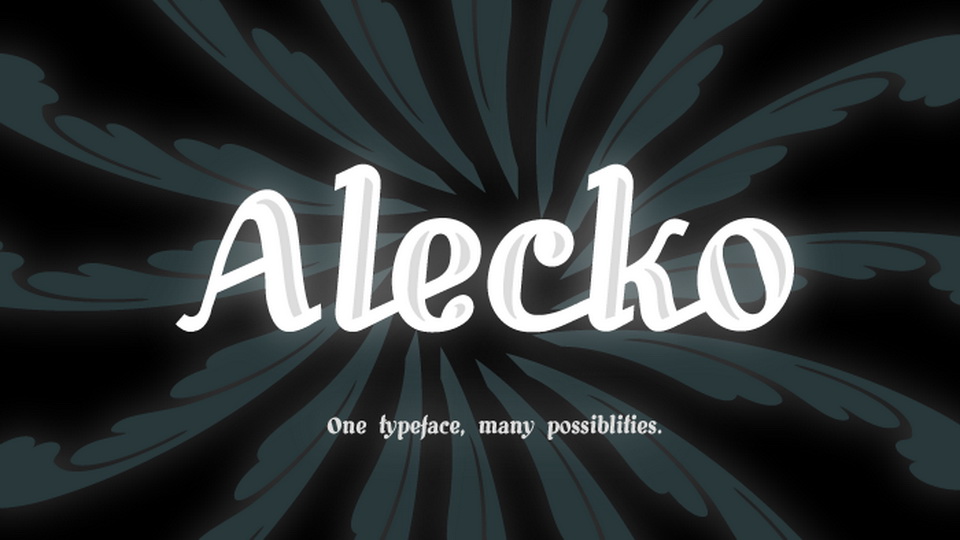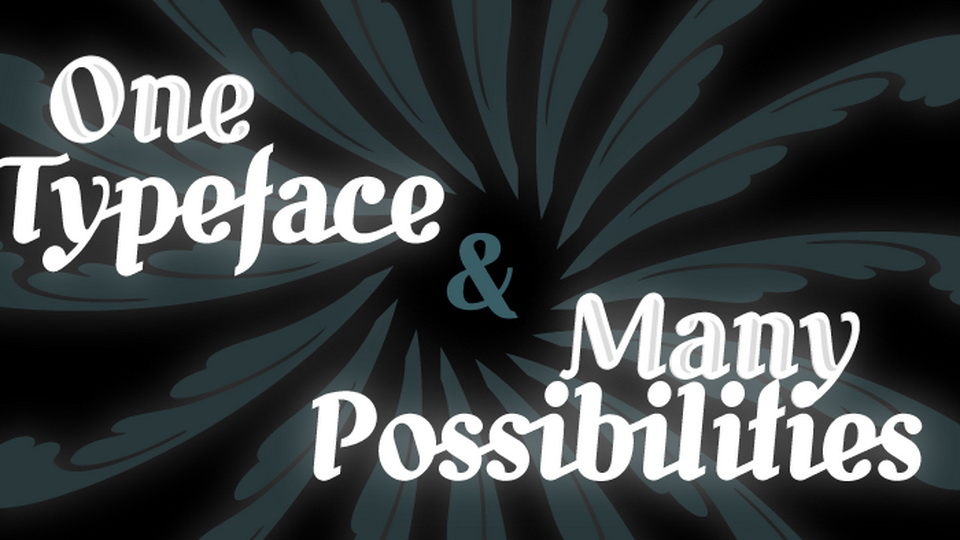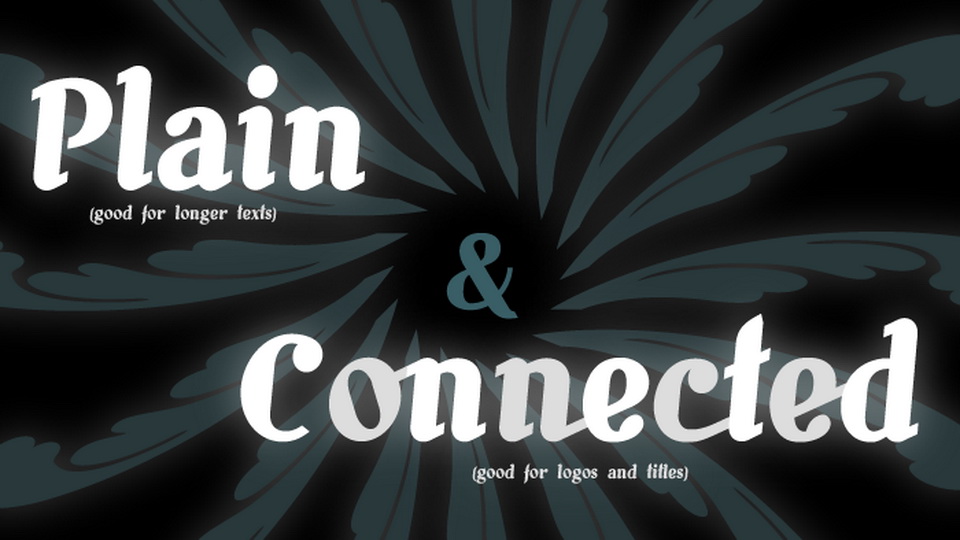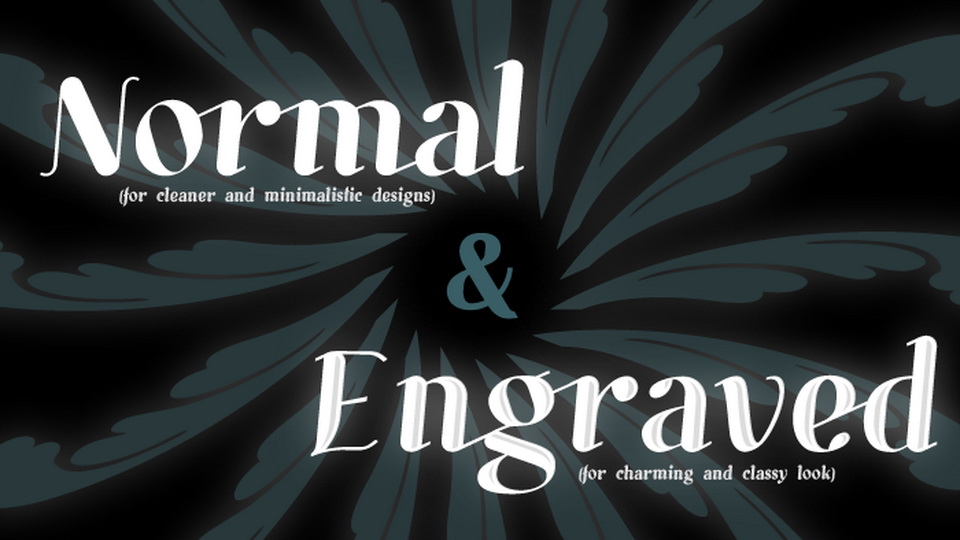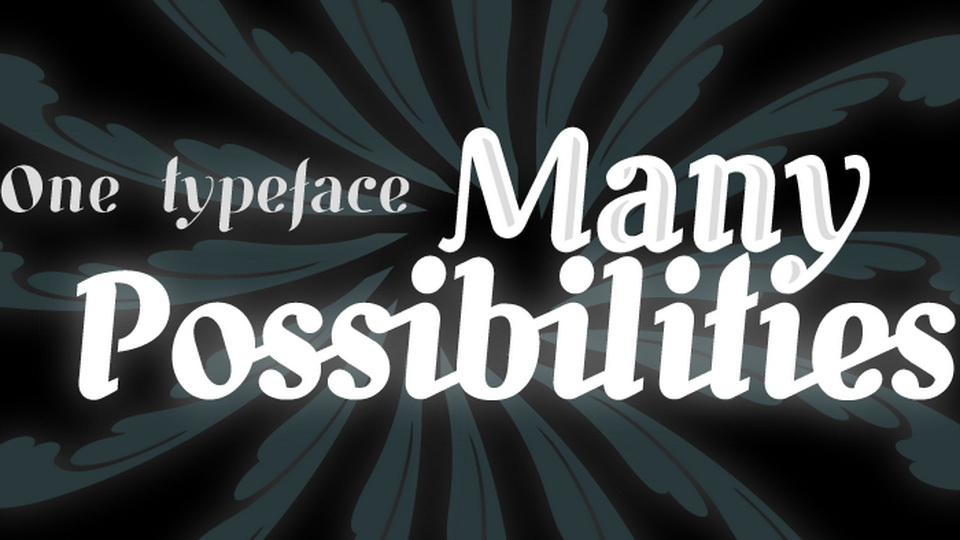
Alecko is a distinctive didone-style typeface, which is strongly influenced by calligraphy, but is at the same time drawn with mathematical precision. Its advantages are summarized in its slogan: “One typeface, many possibilities”. Once you decide to use it, you can alter its look in a variety of ways: Should the contrast between the horizontal and vertical strokes of the glyphs be high or low? Is it appropriate to apply engraving to the letters (and what color?). Should the glyphs be connected to one another?
Alecko is equipped with a lot of alternative characters, which are automatically inserted as you type, in order to achieve a “handwritten” look, however, it can also work without them.